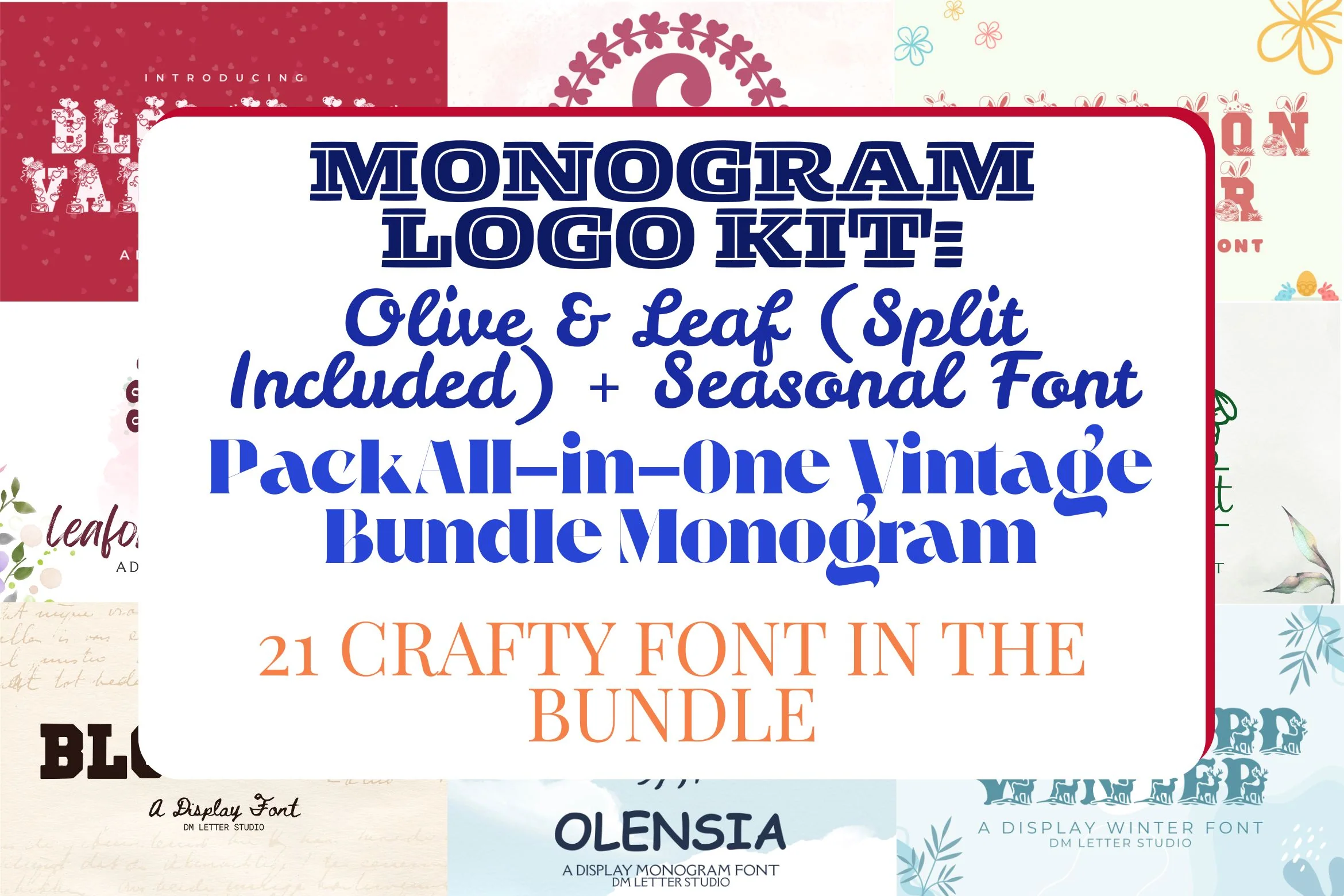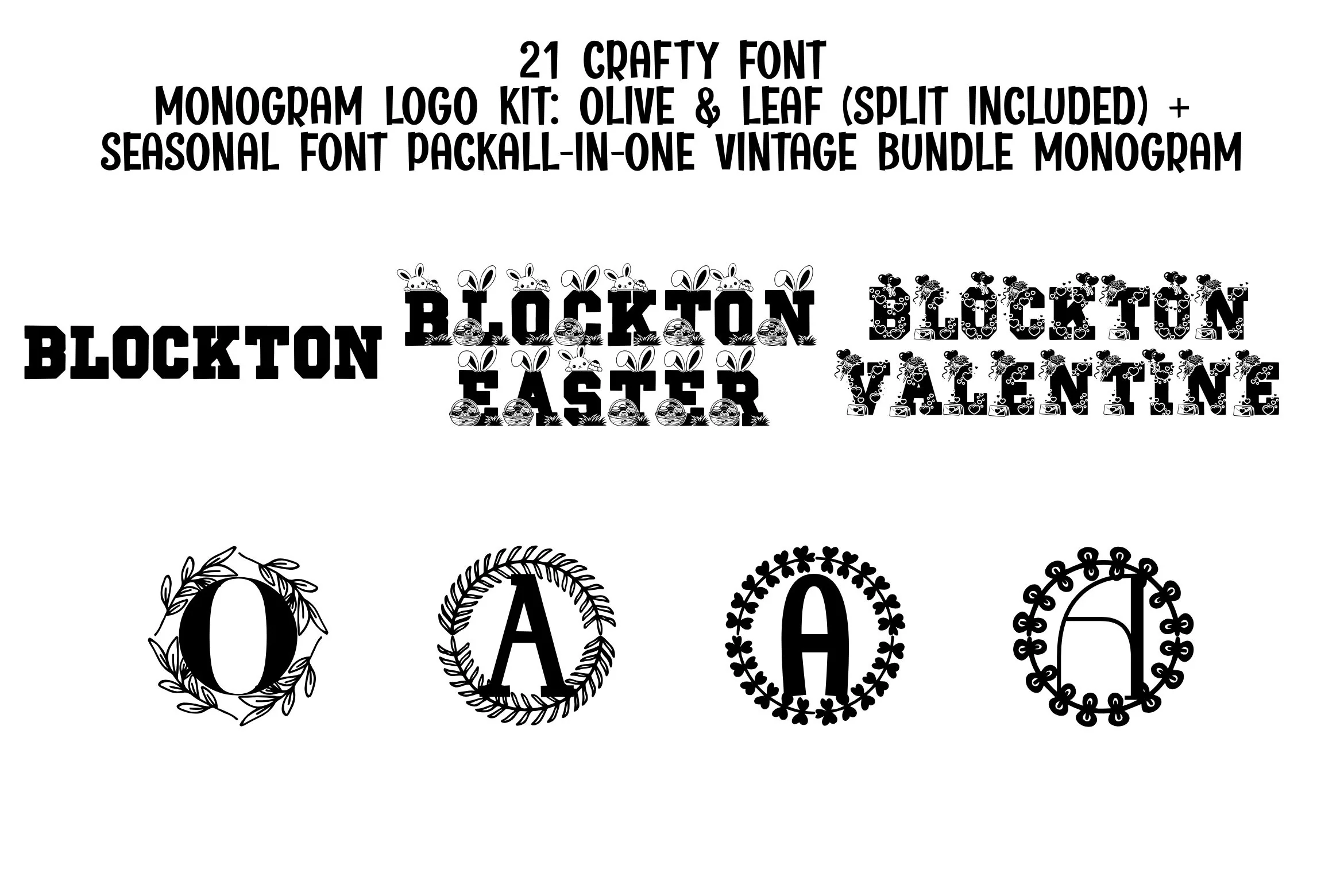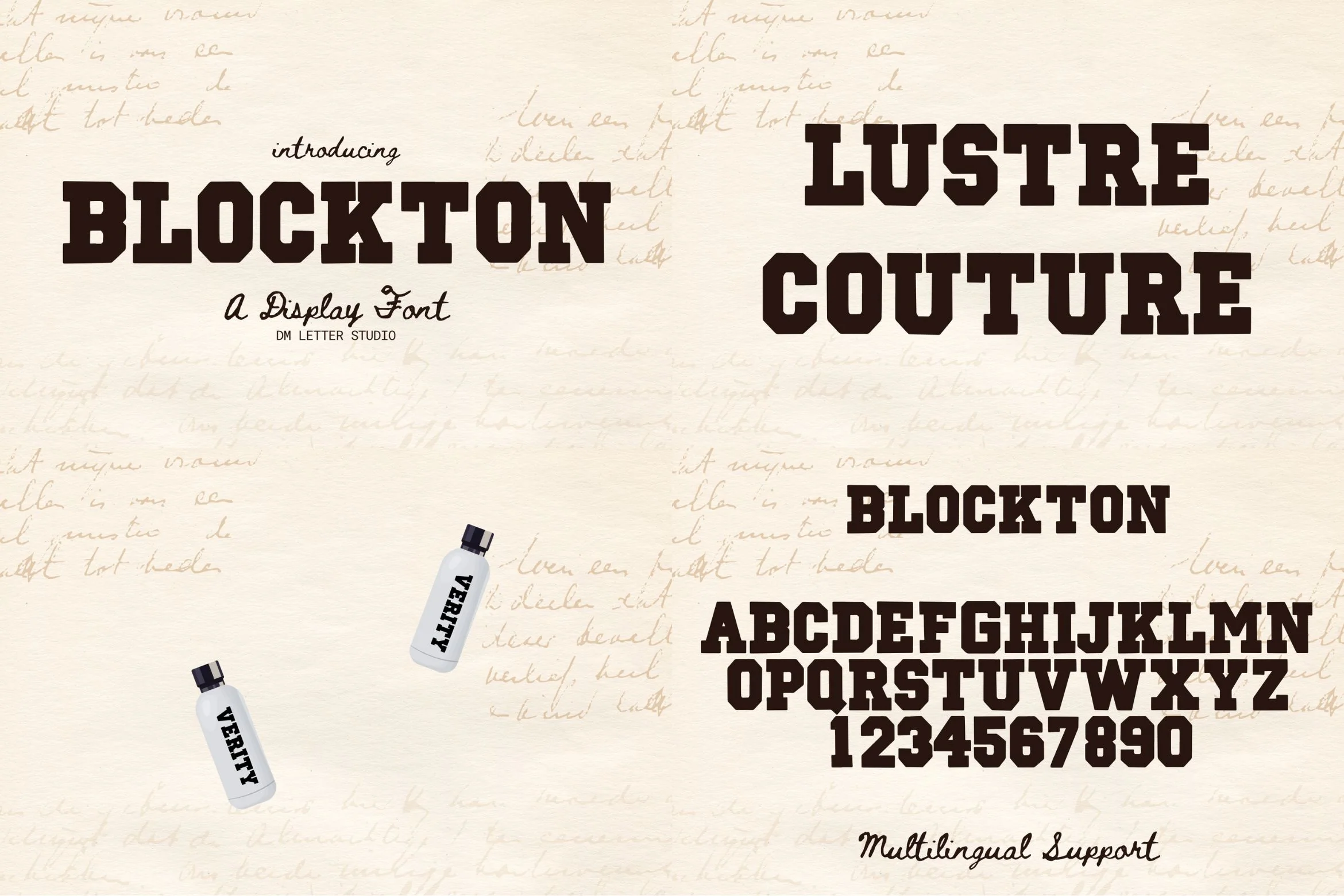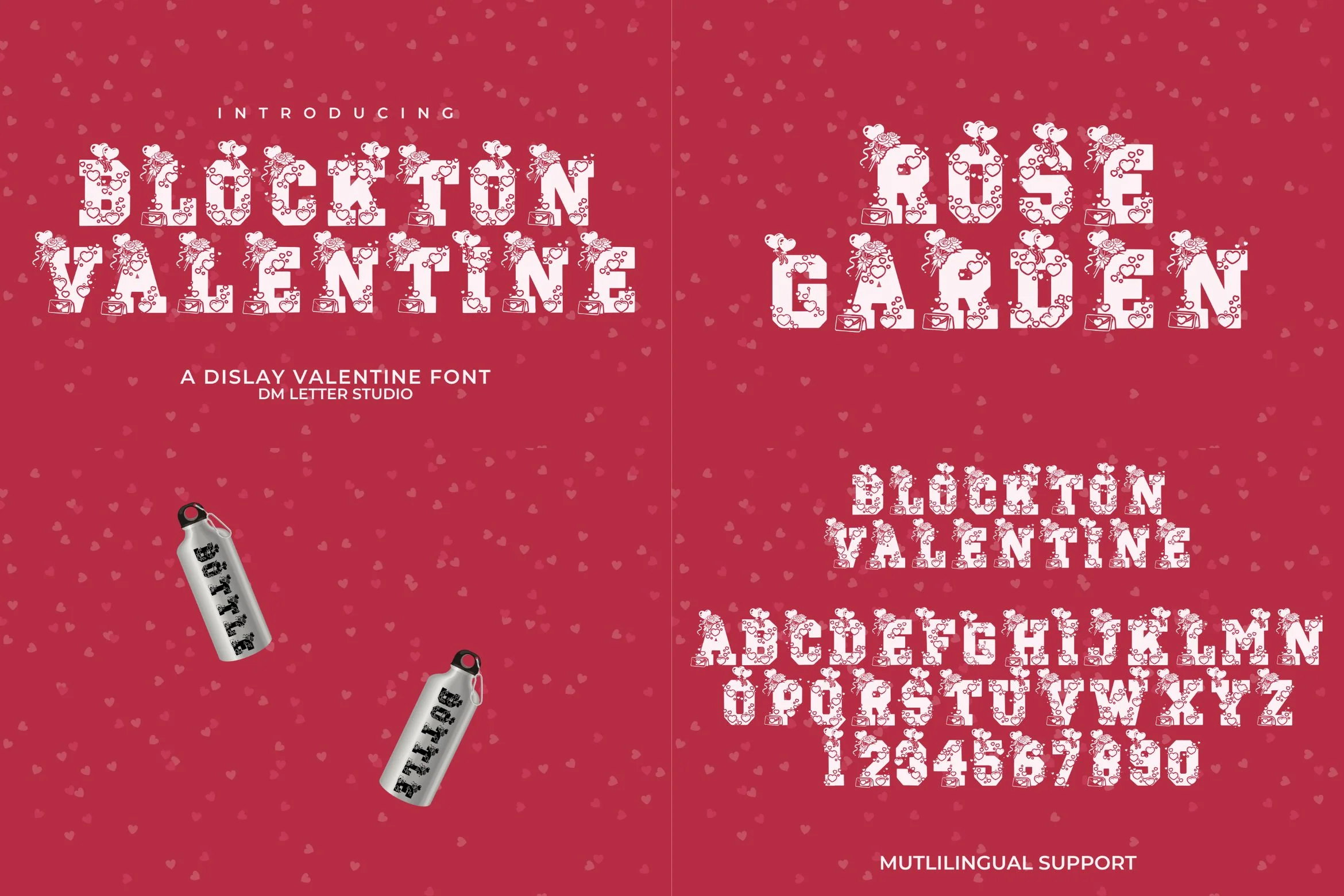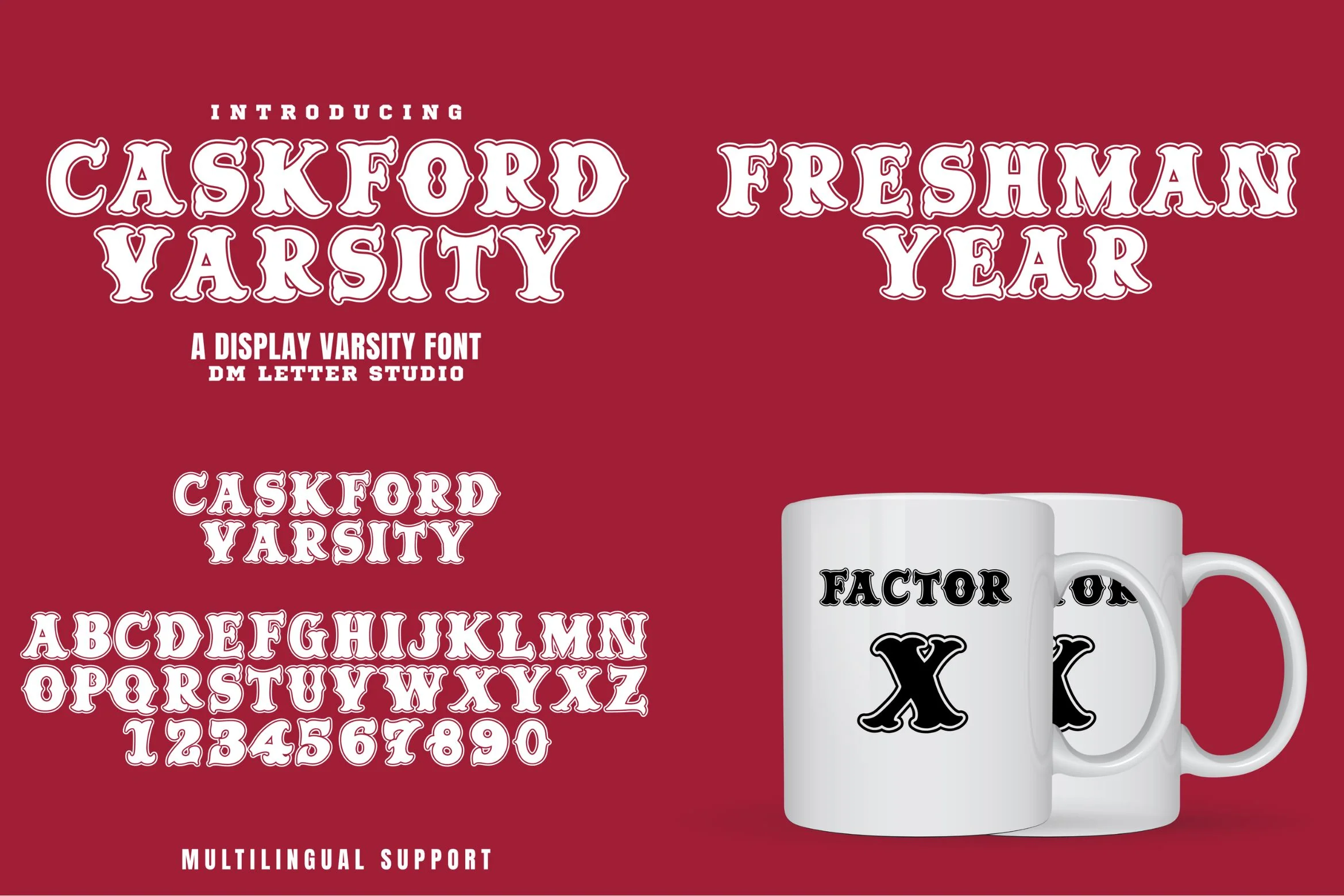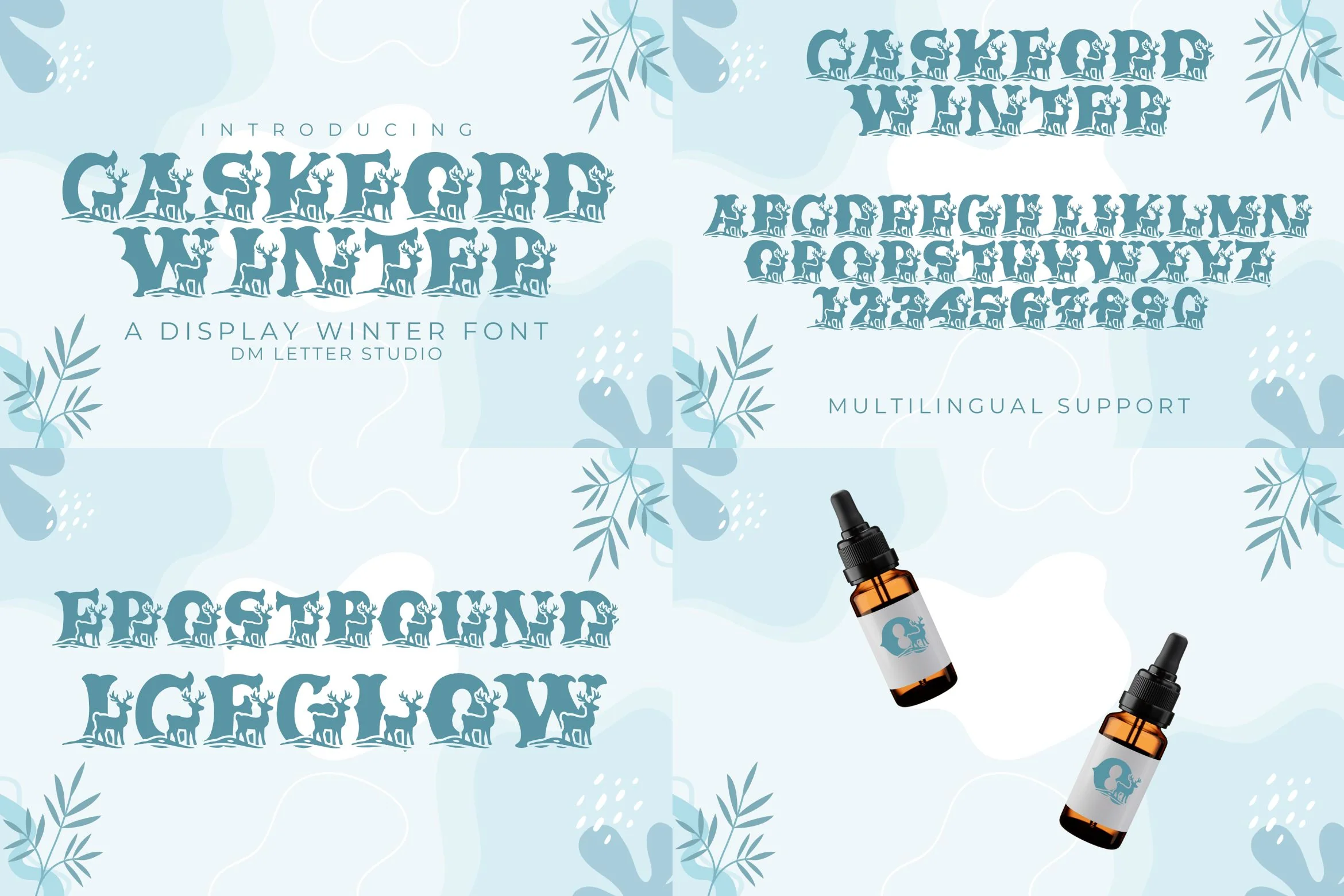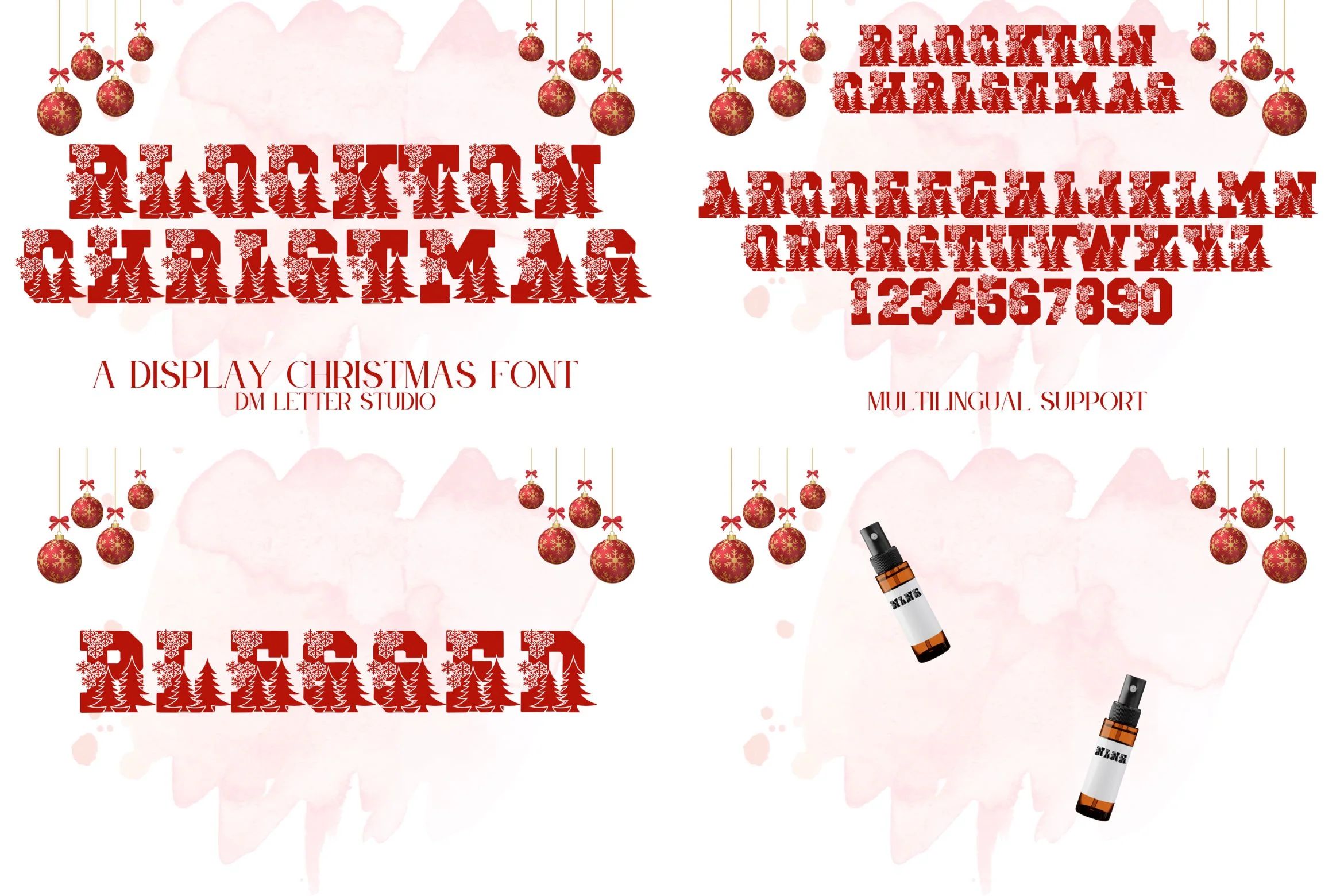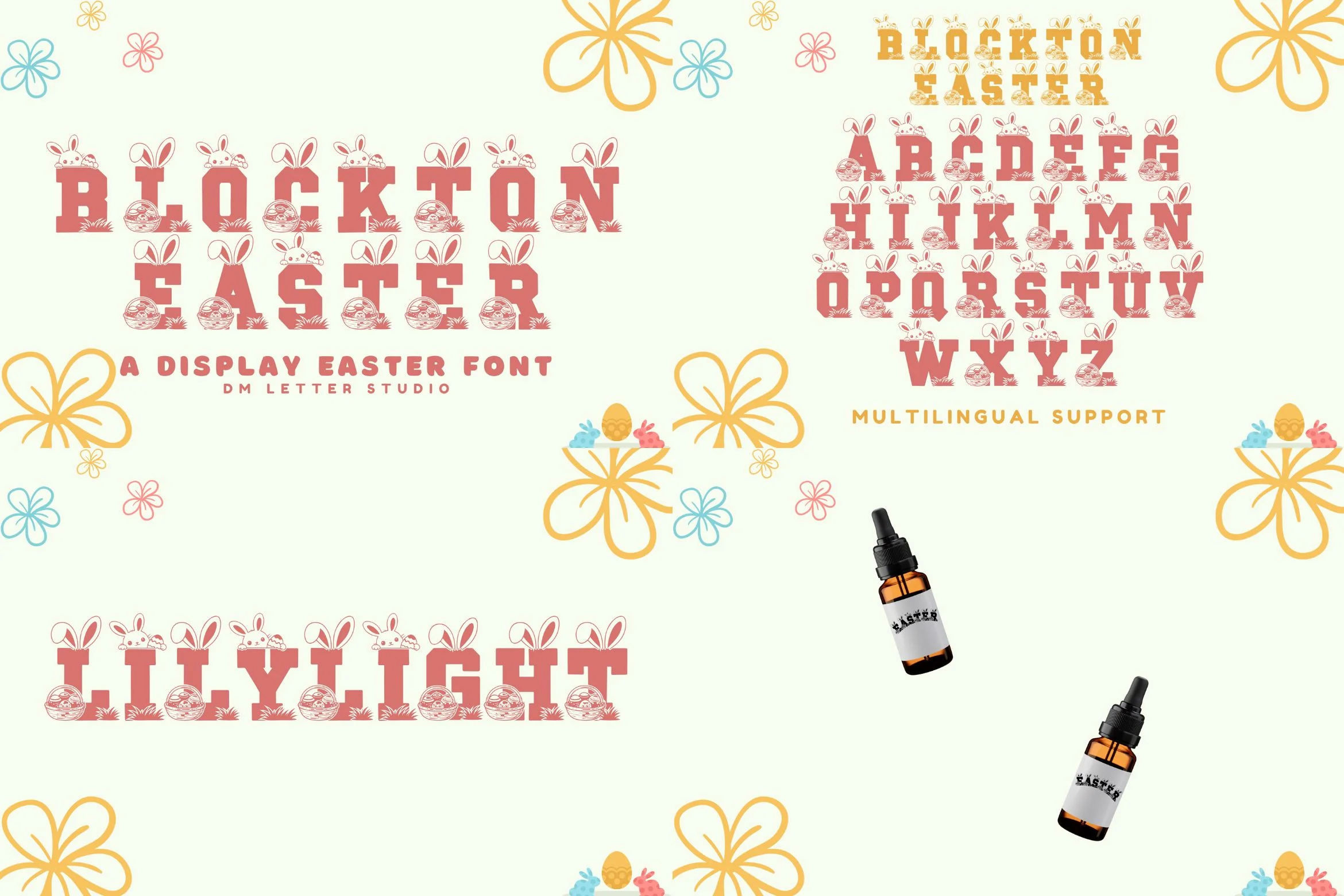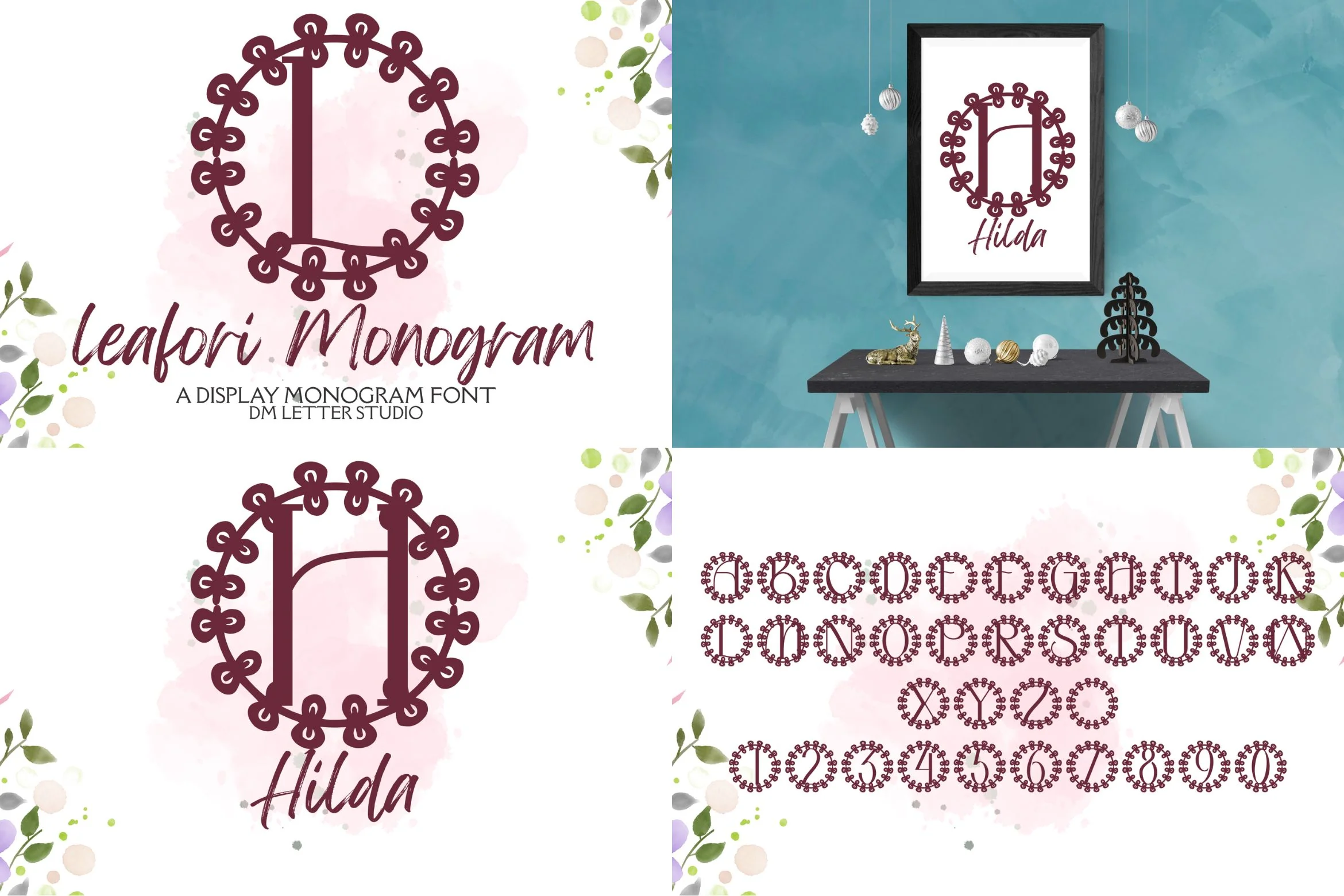
Monogram Logo Kit: Olive & Leaf (Split Included) + Seasonal Font Pack
Meet a versatile bundle built for clean branding, elegant initials, and quick seasonal designs. Monogram Logo Kit: Olive & Leaf (Split Included) + Seasonal Font Pack combines botanical monogram fonts with matching split versions, so you can create both classic initials and name-ready layouts in minutes. Then, it adds seasonal bonus fonts for Valentine, Winter, Christmas, and Easter, giving you everything you need for year-round projects in one download.
What’s included
Olive & Leaf Monograms (Solid + Split)
- Leafori Monogram + Leafori Split Monogram
- Olensia Monogram + Olensia Split Monogram
- Olivara Monogram + Olivara Split Monogram
- Olivenza Monogram + Olivenza Split Monogram
- Oliveora Monogram + Oliveora Split Monogram
- Olmaria Monogram + Olmaria Split Monogram
- Sylvaleaf Monogram + Sylvaleaf Split Monogram
Seasonal Font Pack (Bonus)
- Caskford Varsity
- Caskford Winter
- Caskford Valentine
- Blockton Valentine
- Blockton
- Blockton Christmas
- Blockton Easter
- Split monograms included: Add names, short words, or dates in a balanced layout.
- Botanical style that feels premium: Olive and leaf shapes fit boutiques, wedding brands, and natural products.
- Seasonal coverage in one pack: Switch your look fast for Valentine promos, winter drops, Christmas launches, and Easter campaigns.
- Branding-ready: Great for logos, labels, seals, icons, and packaging stamps.
Quick design tips
Pair a split monogram with a clean wordmark for a complete logo. Next, use Blockton for bold seasonal headlines. Then, add an olive wreath monogram as the finishing mark for a polished brand look.